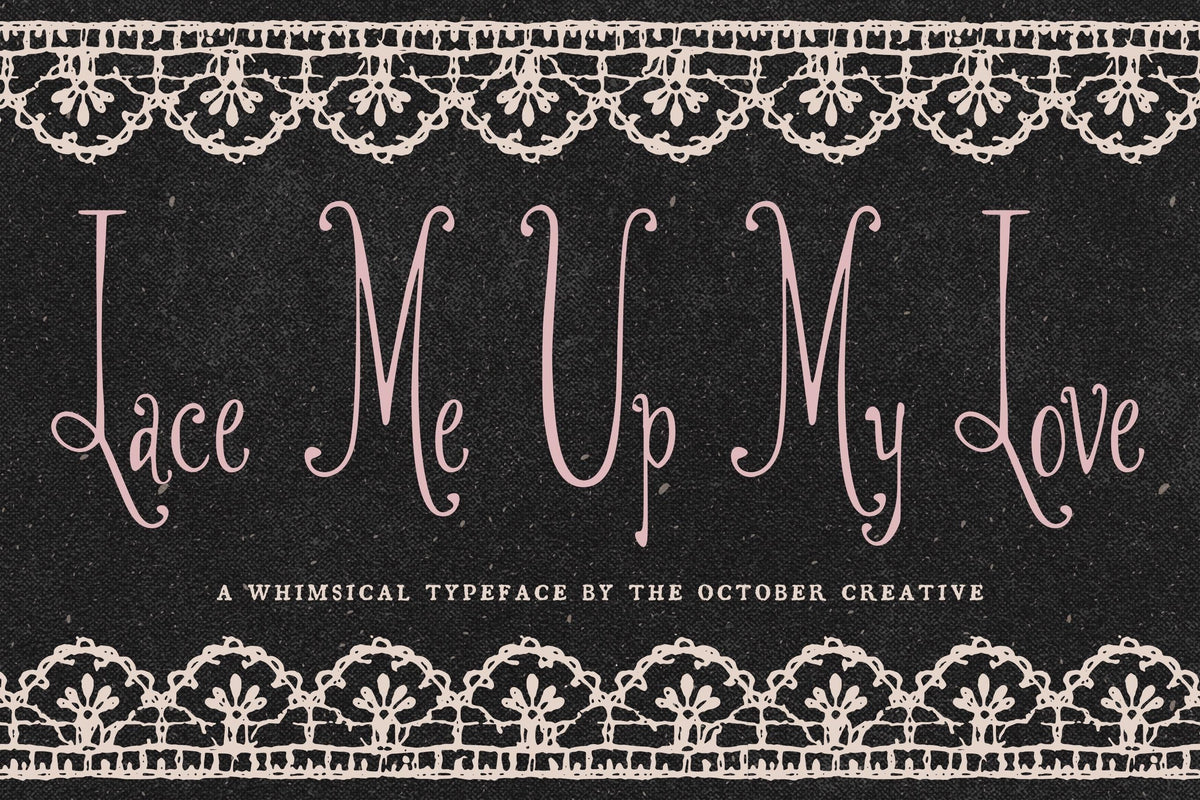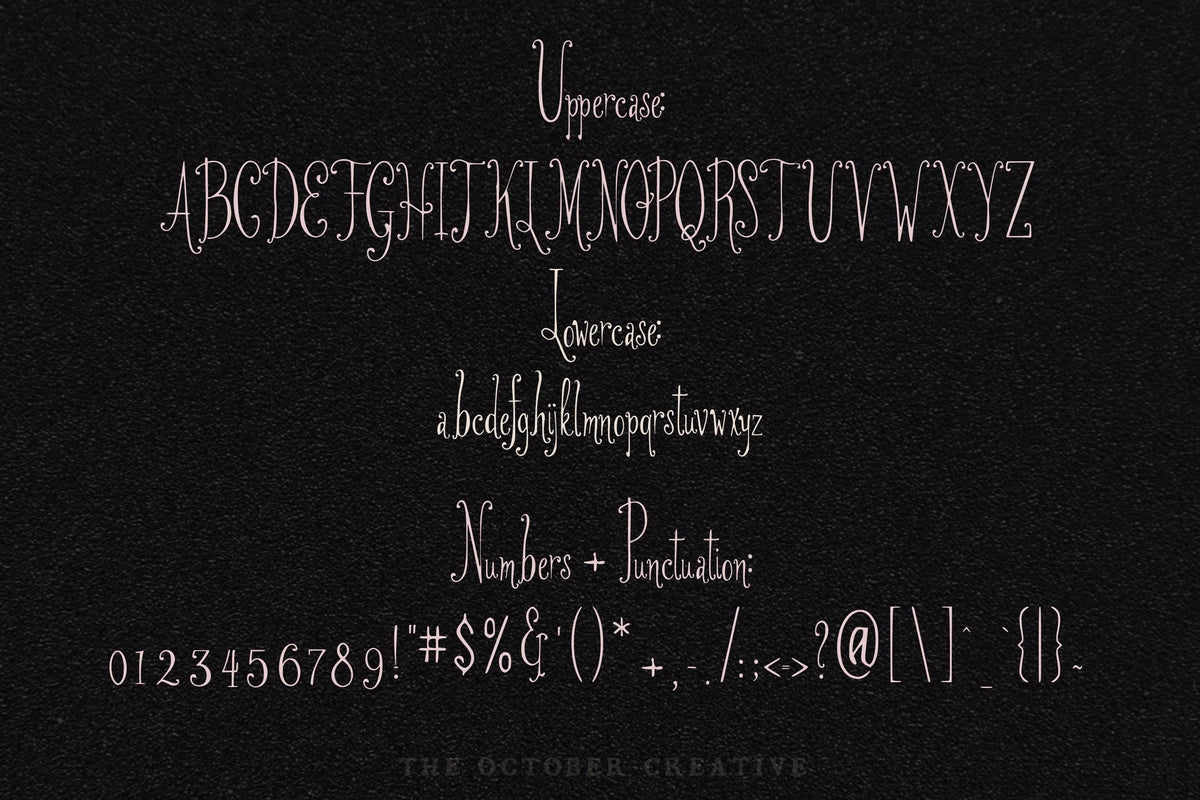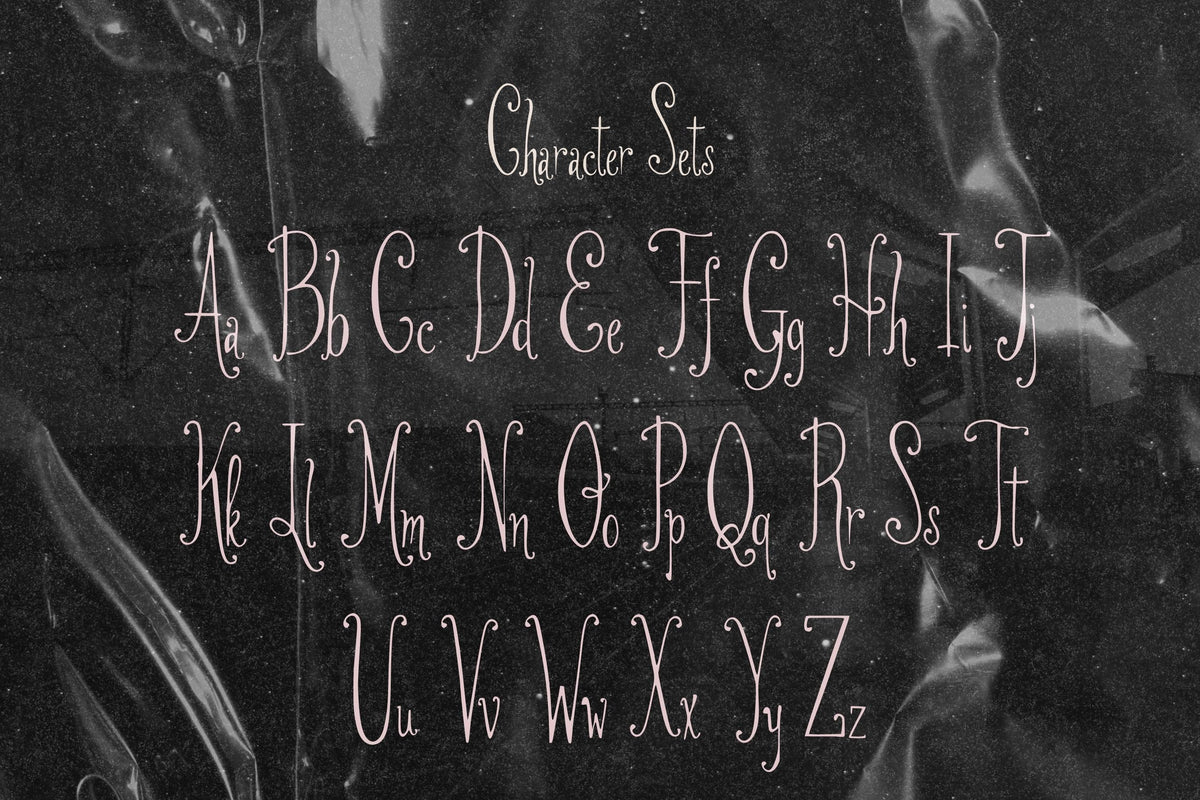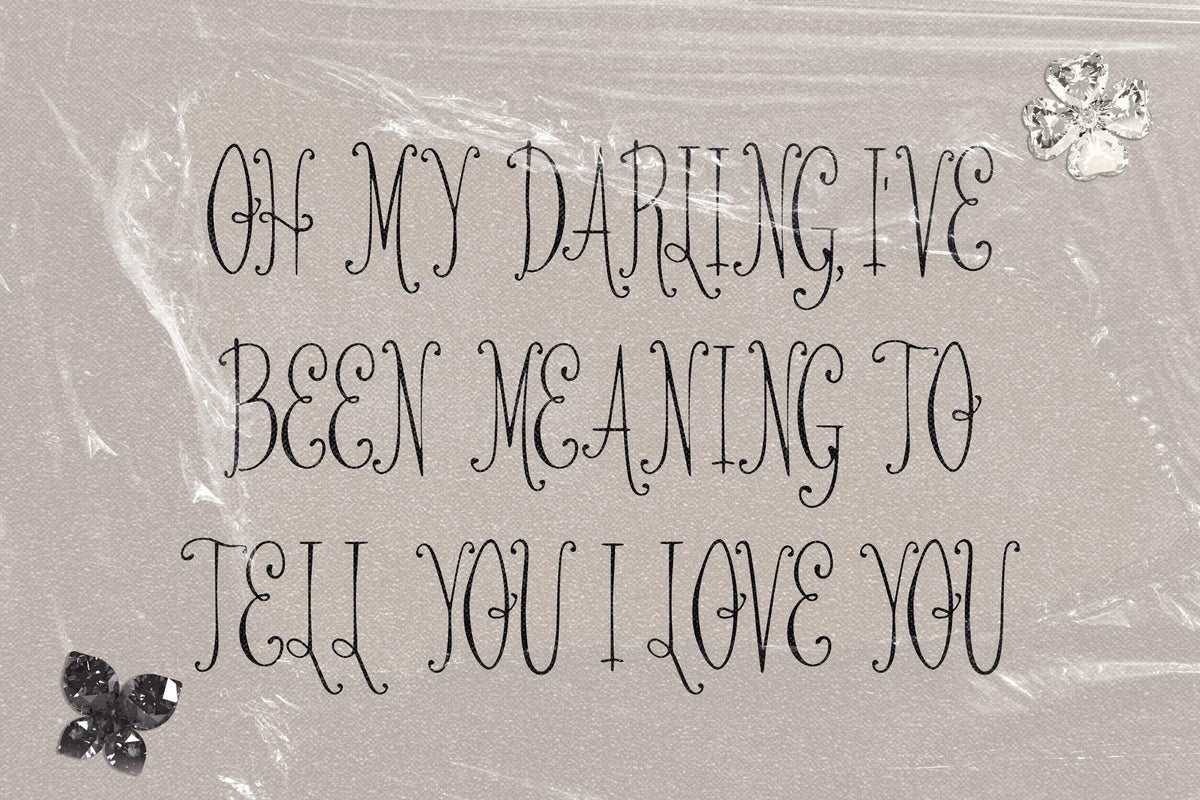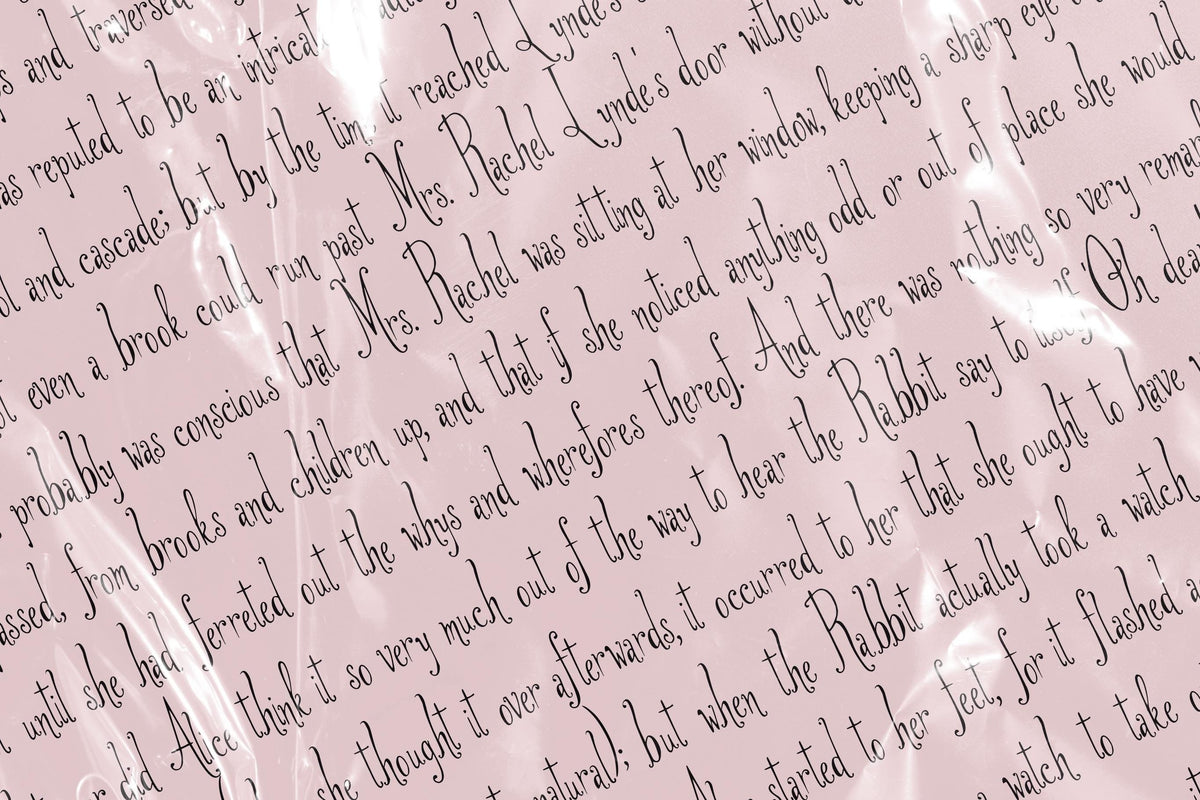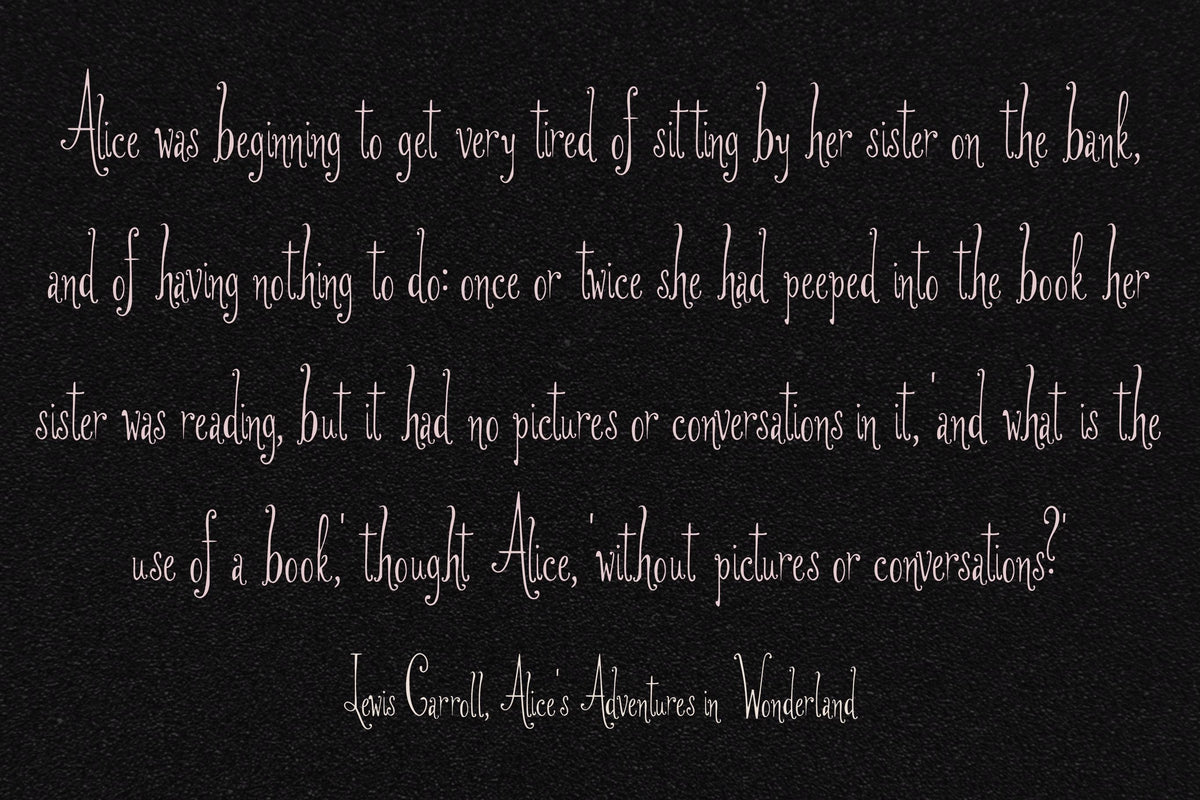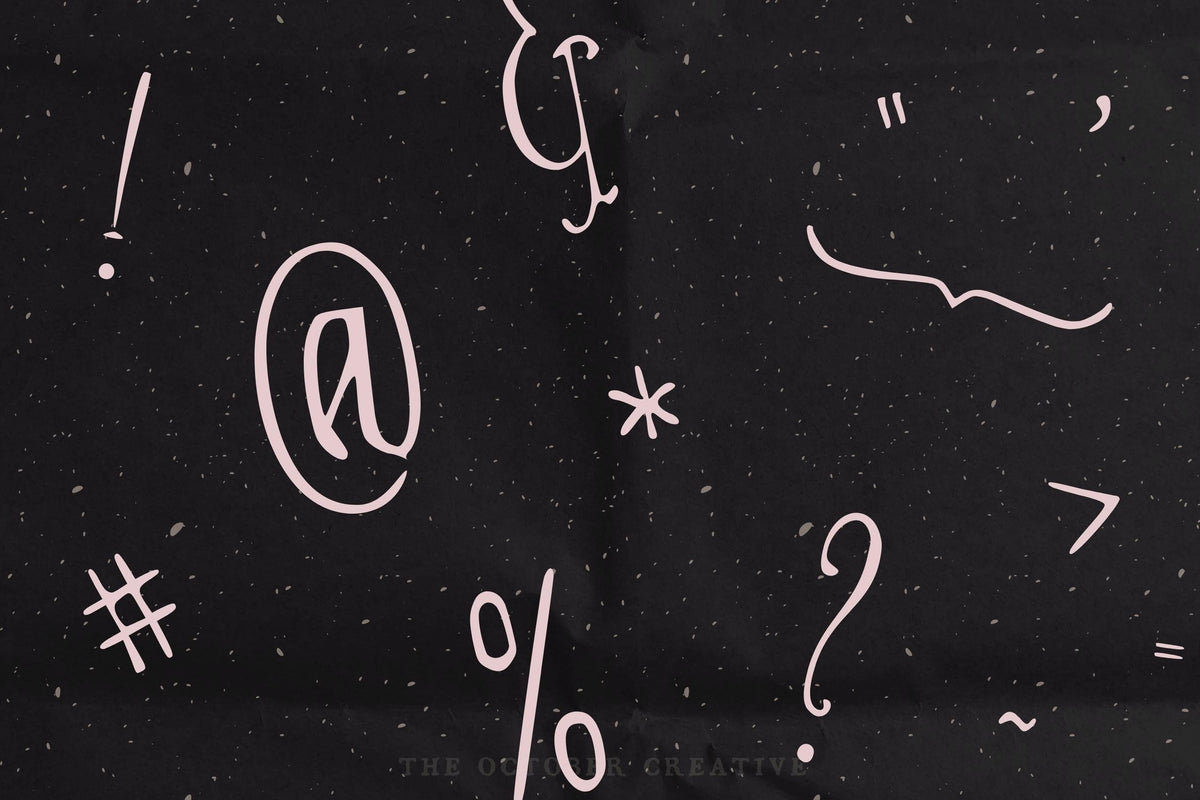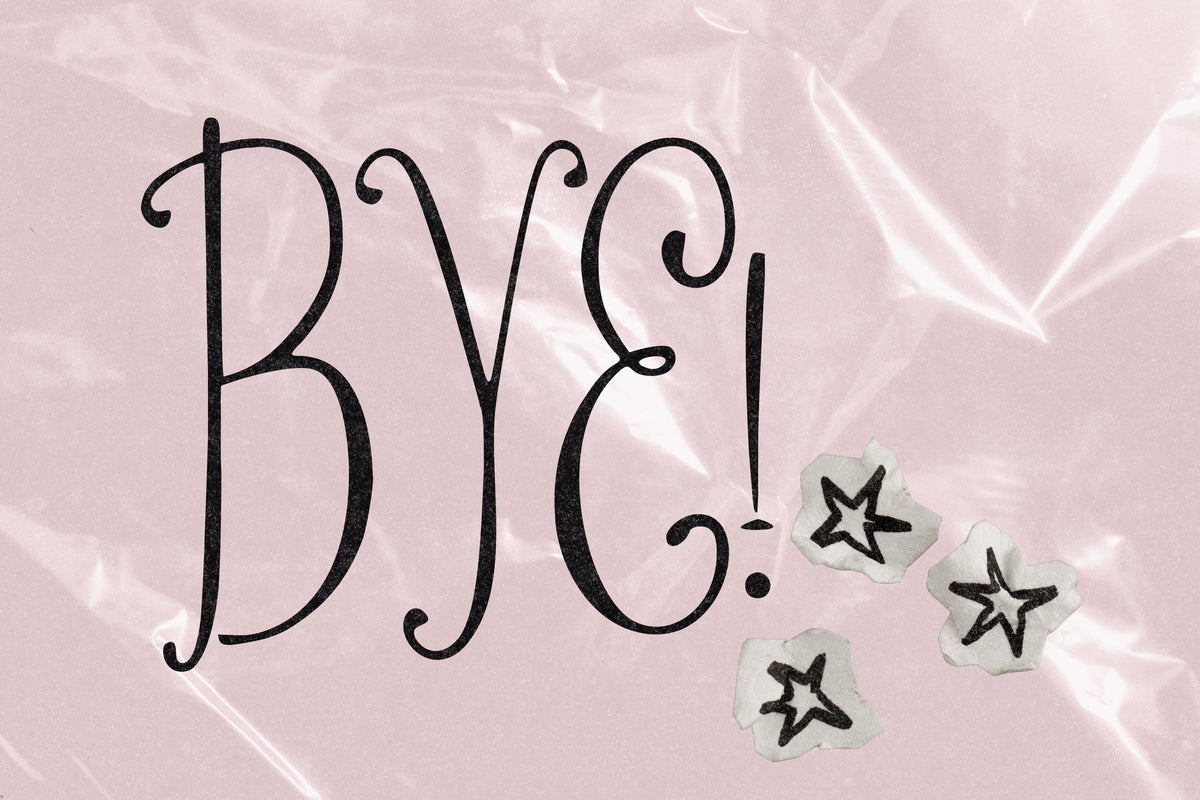
Lace Me Up My Love Font
Lace Me Up My Love is a romantic serif font with very tall hairline capitals, sweeping curls, and a small, light lowercase. It's best for names and short lines on wedding invitations, place cards, vow prints, and perfume-style labels.